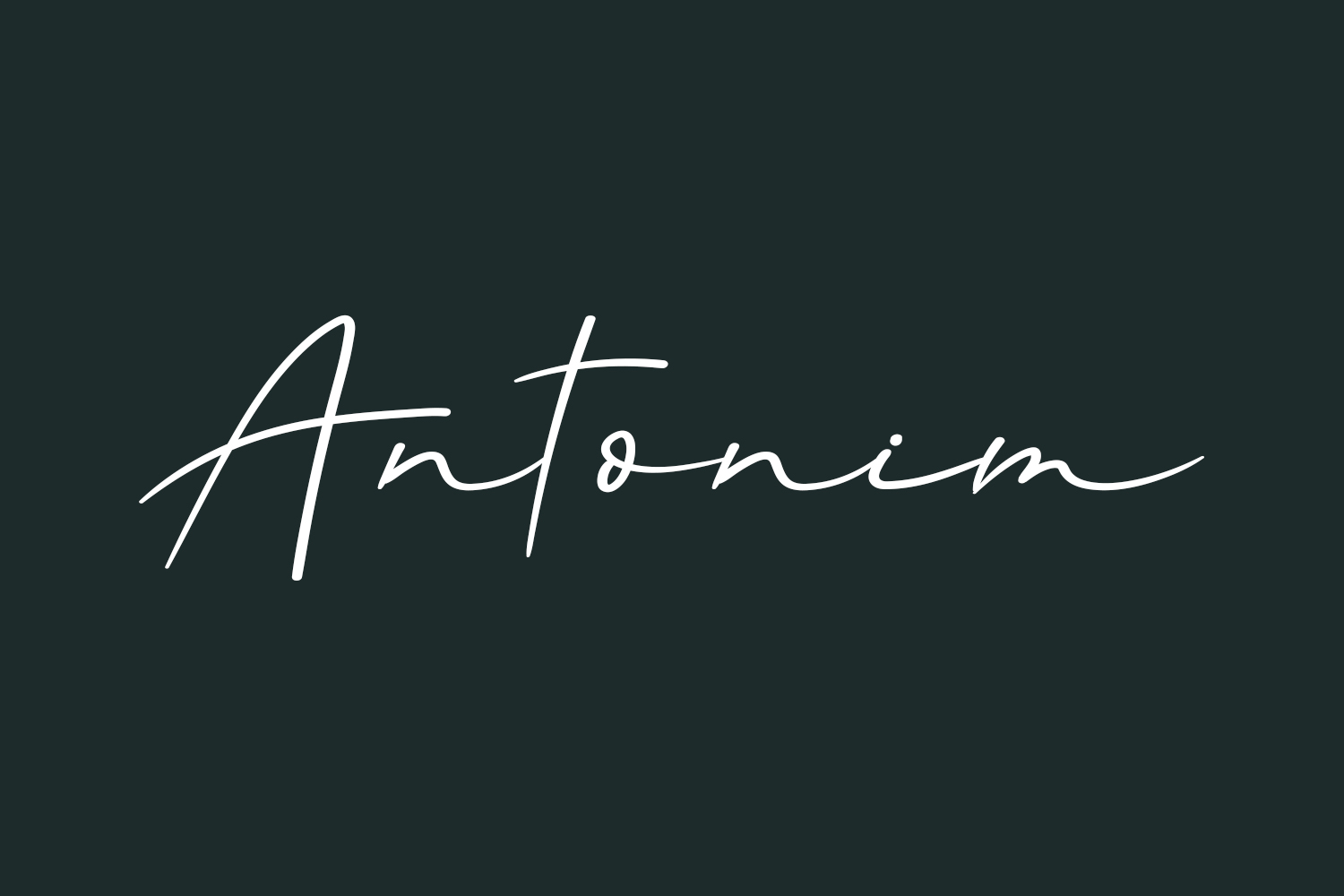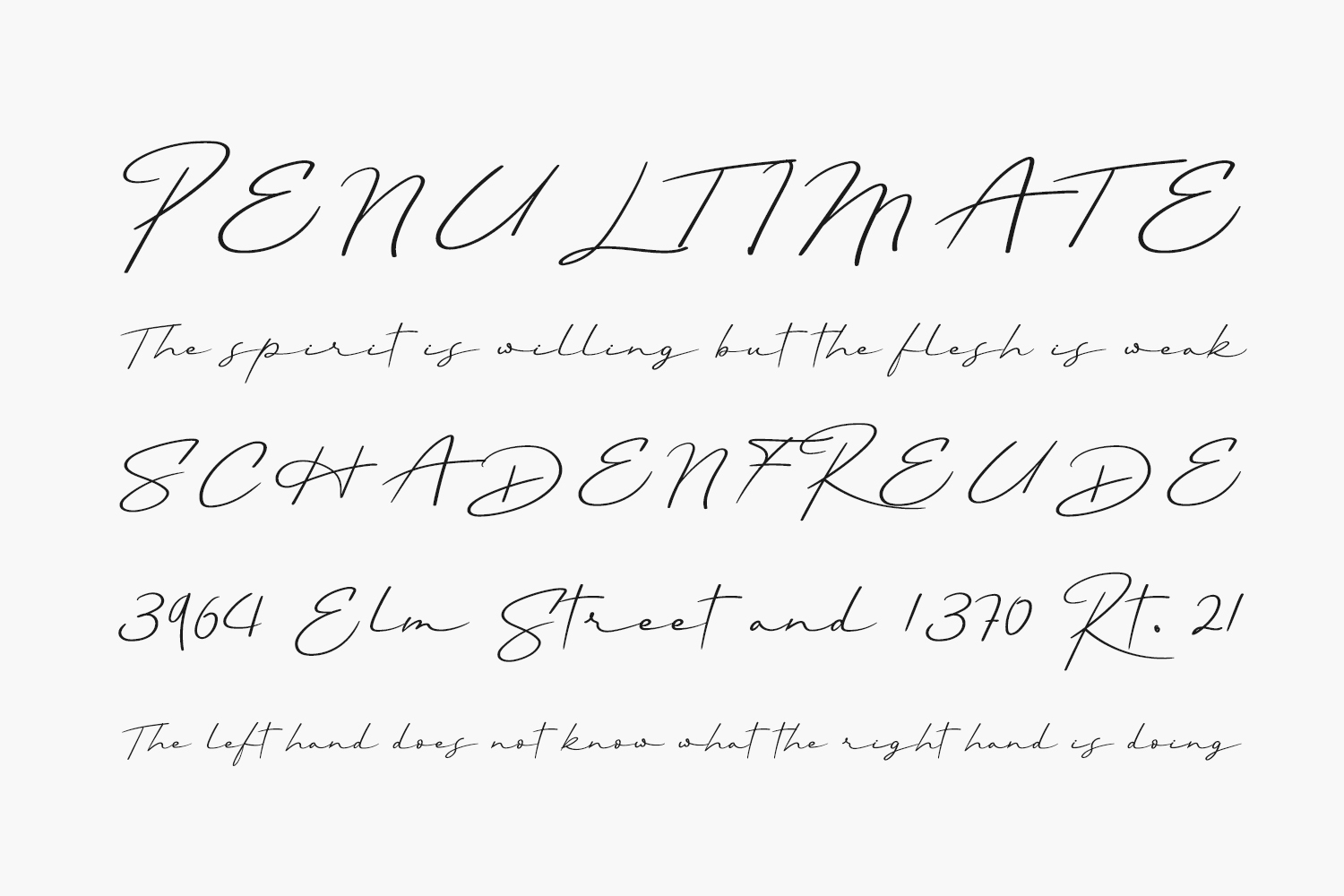
Immerse yourself in the graceful allure of Antonim Free Font, a fluid and elegant handwritten font. With its captivating and harmonious characters, this font effortlessly complements a diverse range of designs. Infuse your most imaginative ideas with Antonim and witness how it breathes life into them, adding a touch of enchantment to your creations. Antonim Free Font is free for personal or commercial use only.
Designed by Belina Studio